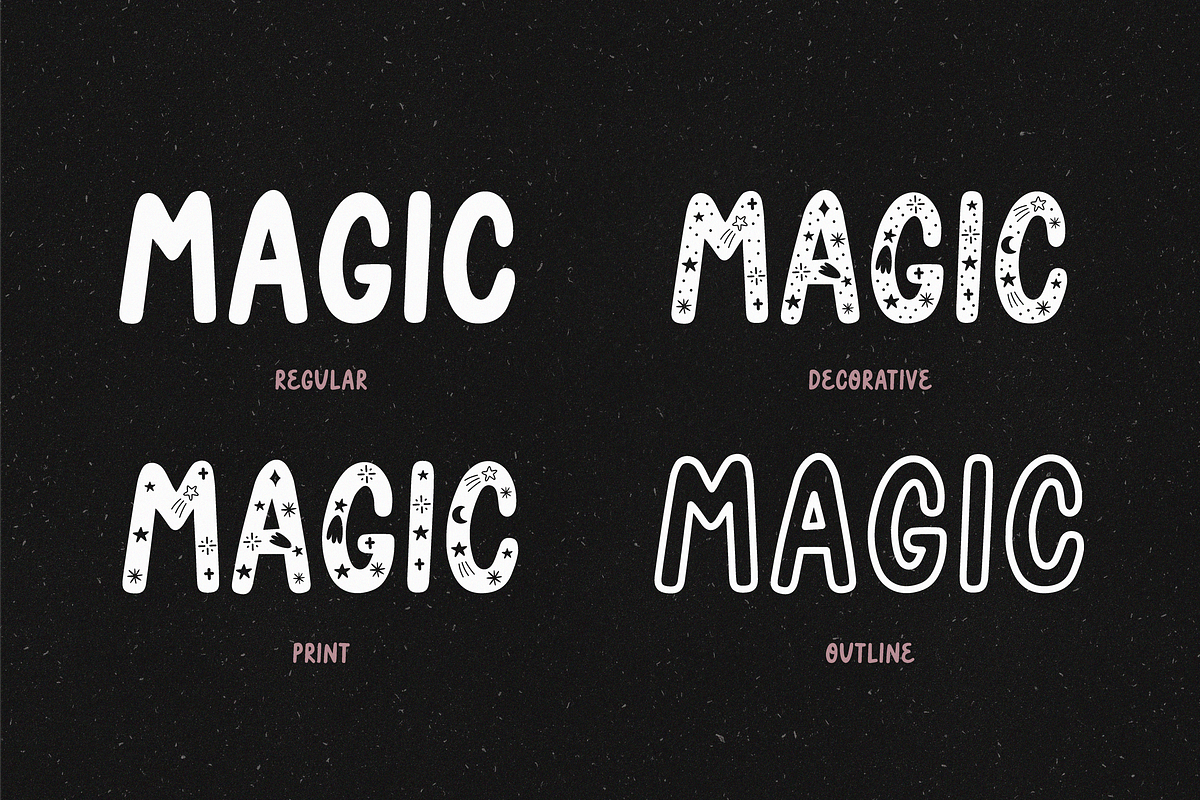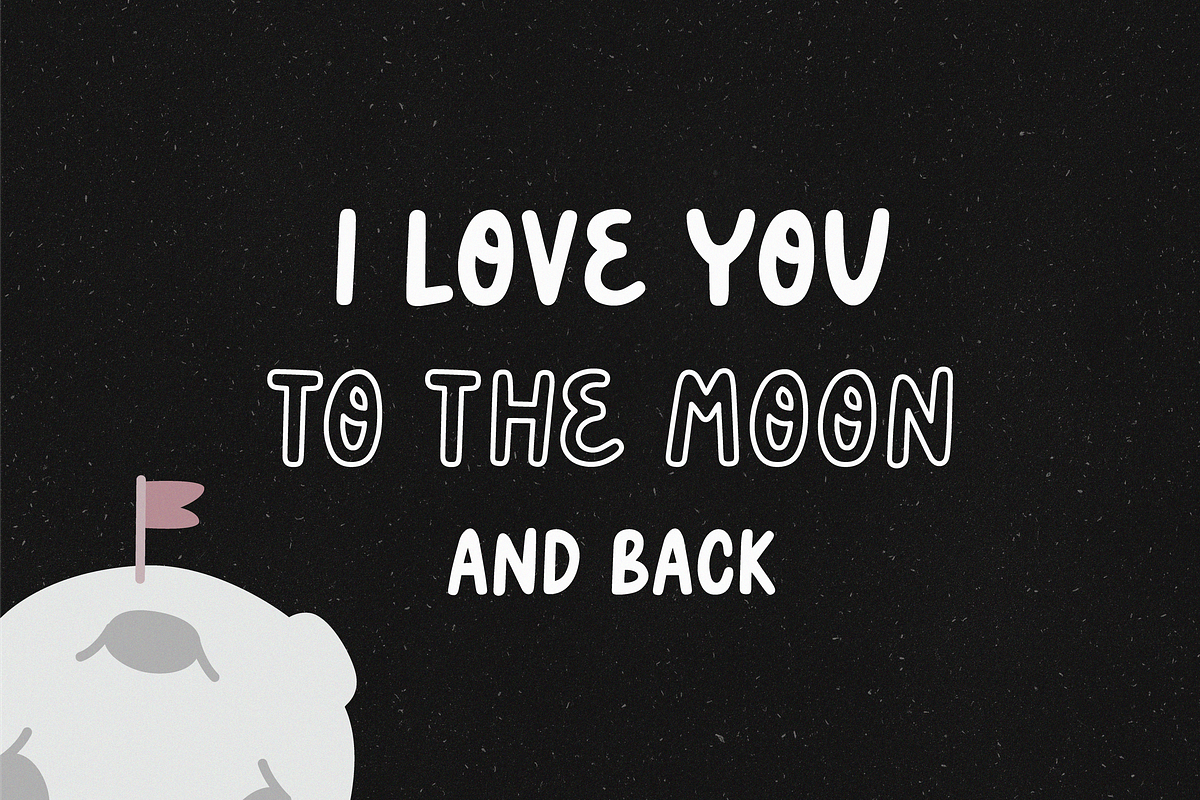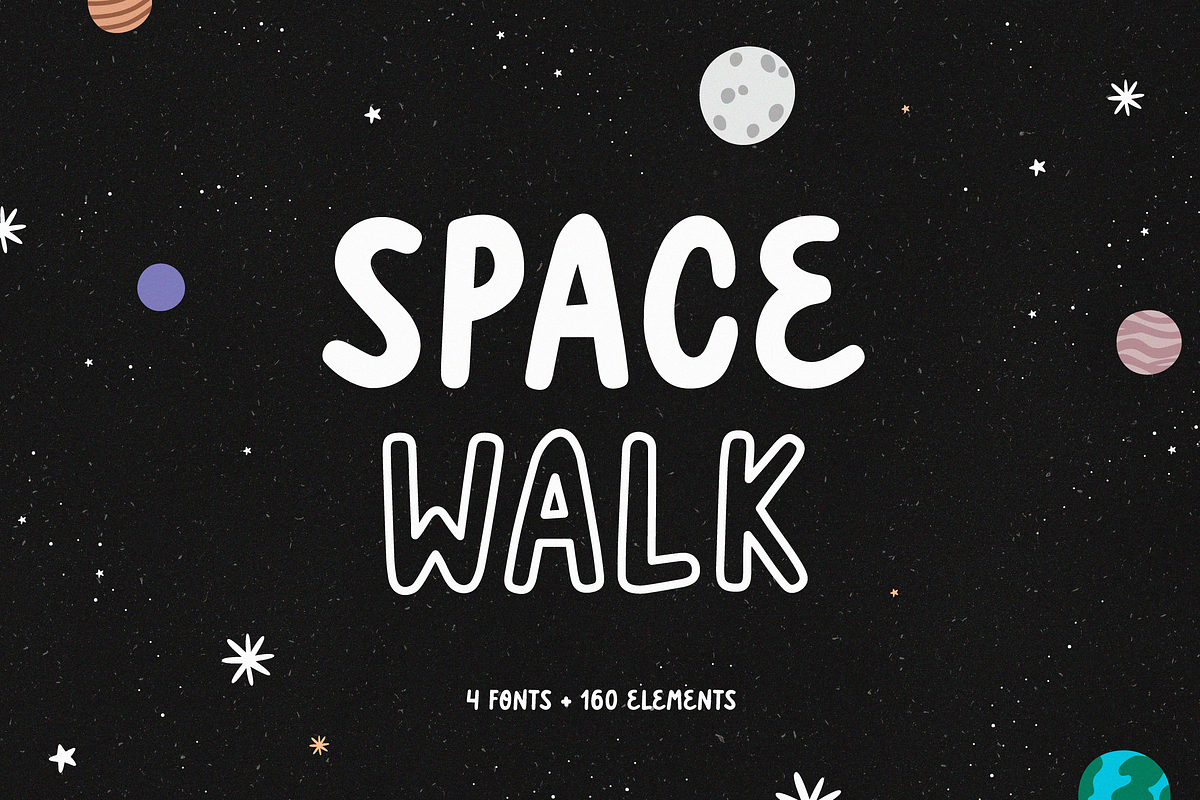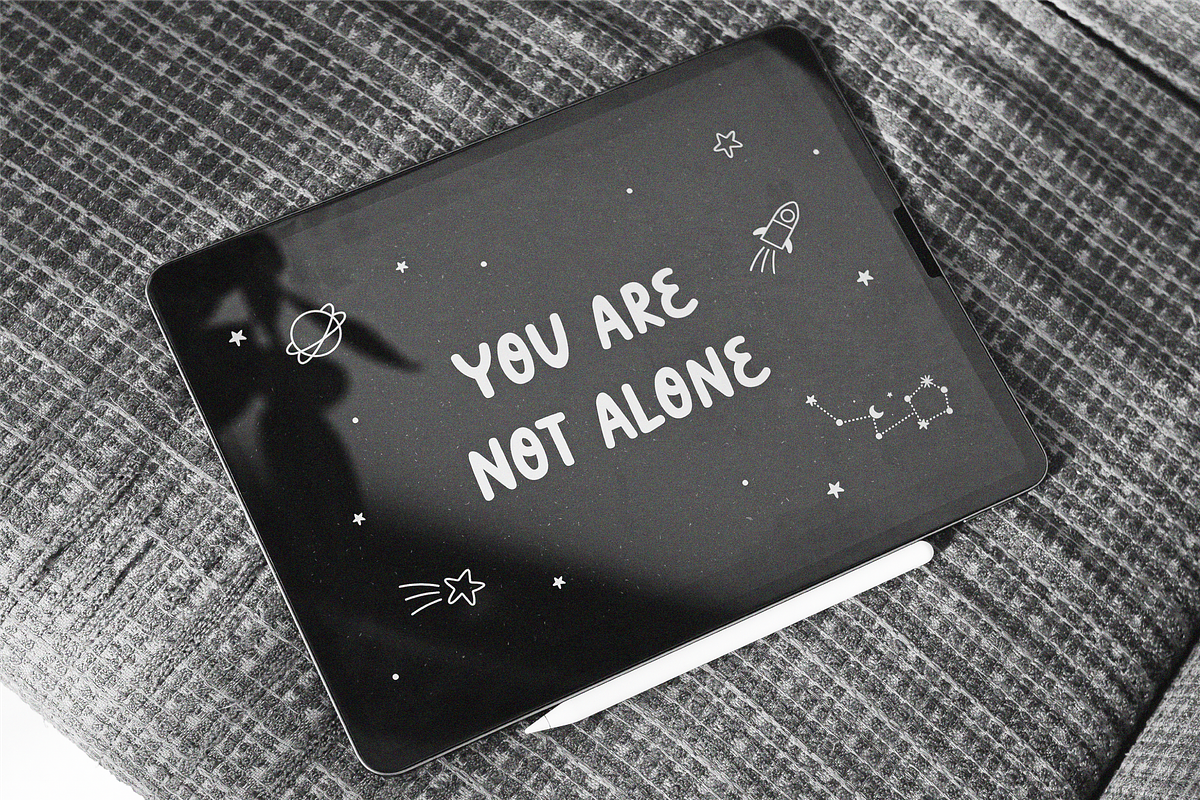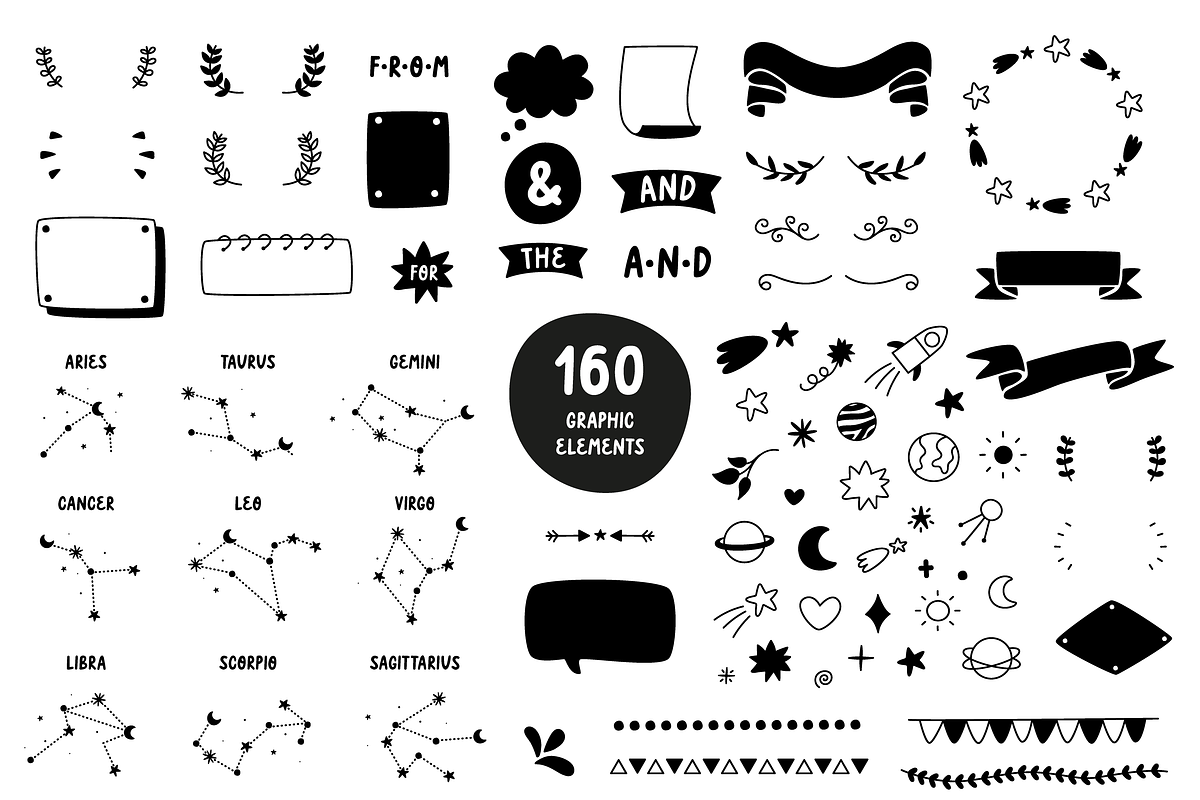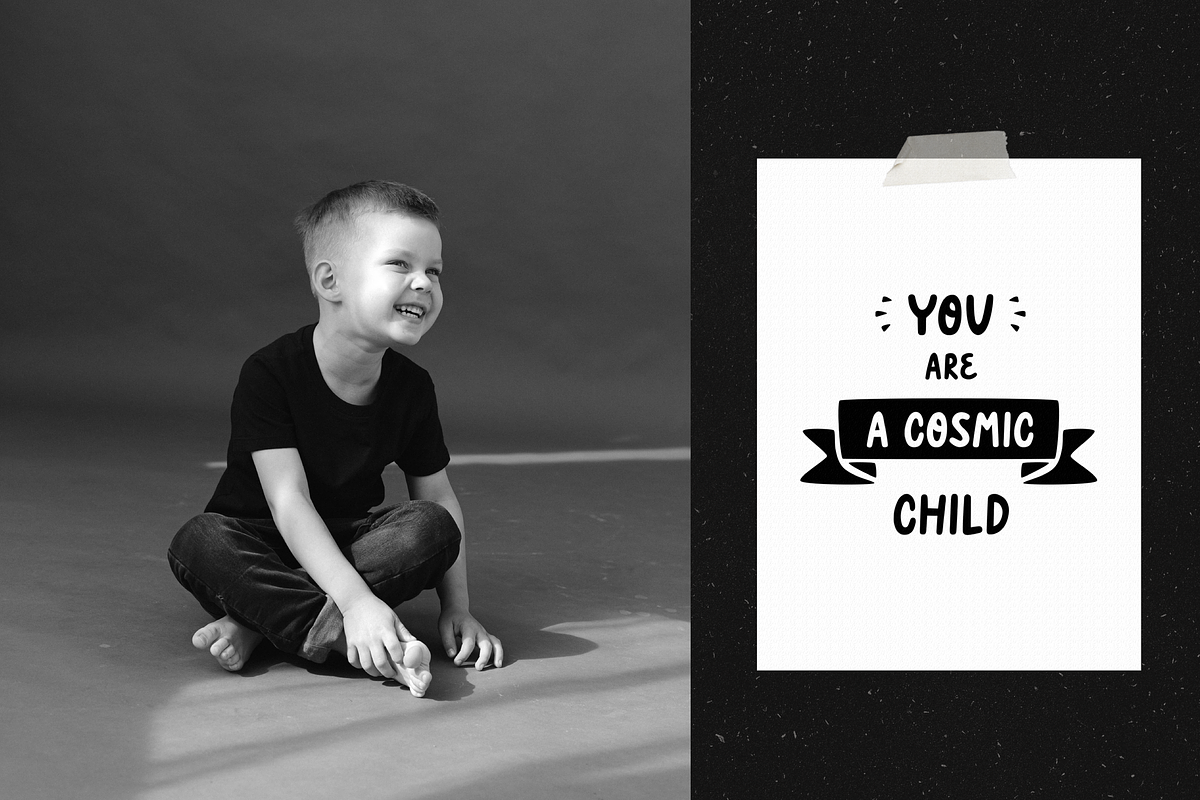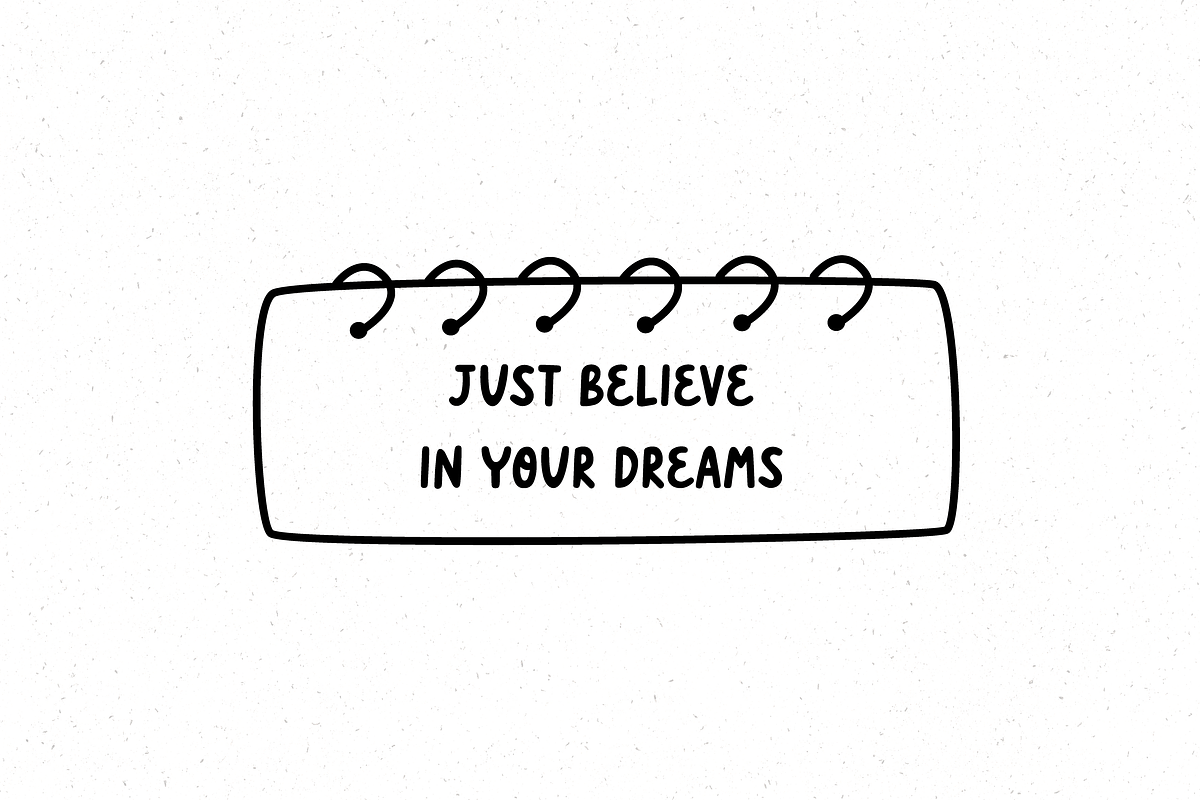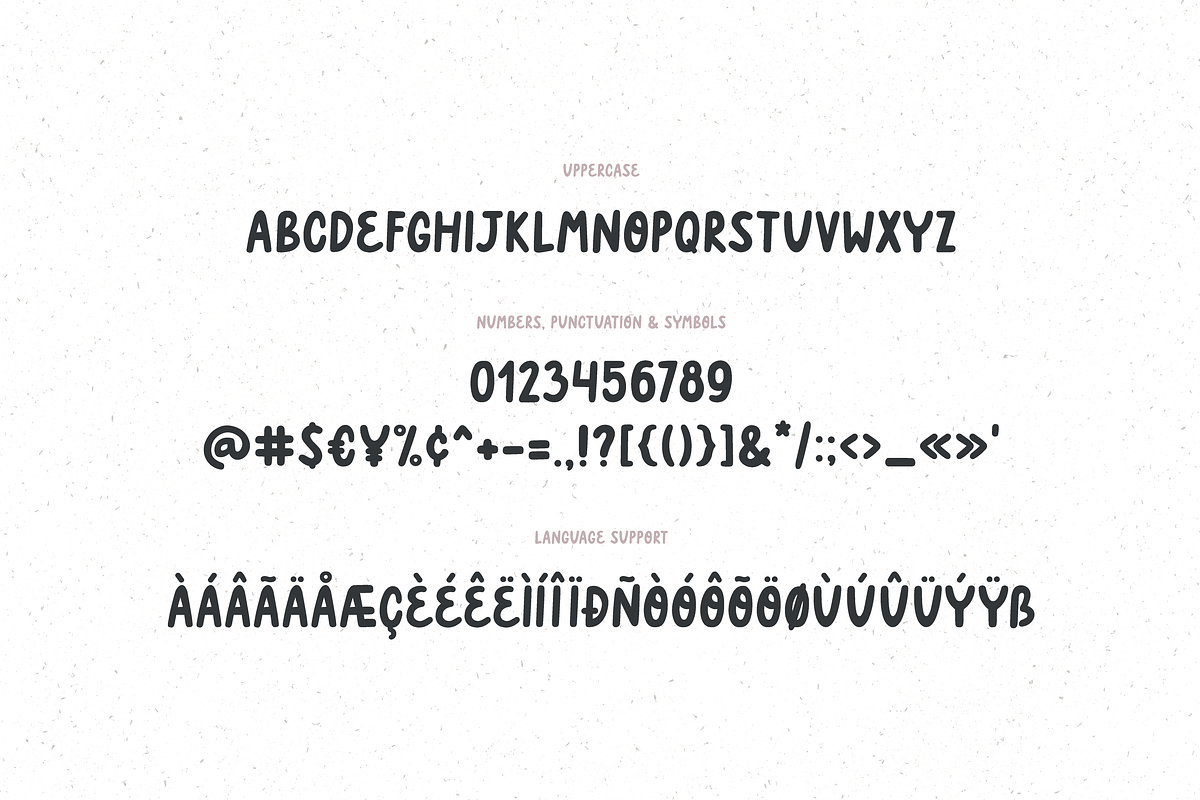
Space walk | Playful font
Space walk - playful hand-lettered font, ready to make your design looks great and fun! :) Use for quotes, greeting cards, invitations, posters, baby clothing and more!